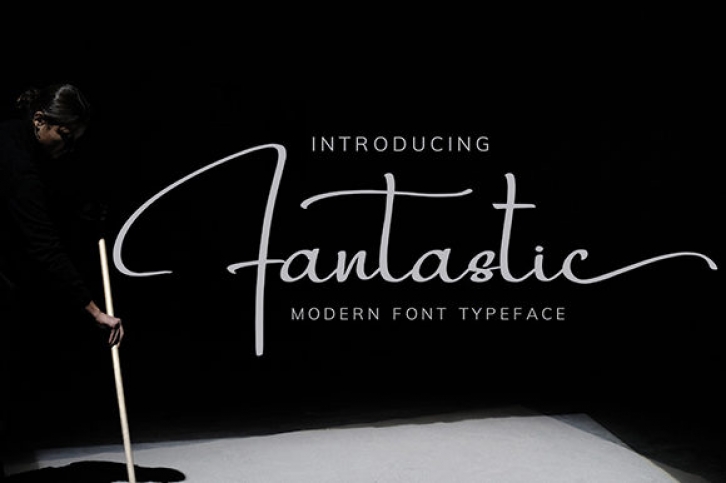
Fantastic is an elegant and thin handwritten font. It is PUA encoded which means you can access all of the glyphs and swashes with ease! It maintains its classy calligraphic influences while feeling contemporary and fresh. Fall in love with this font and bring your projects to the highest levels!